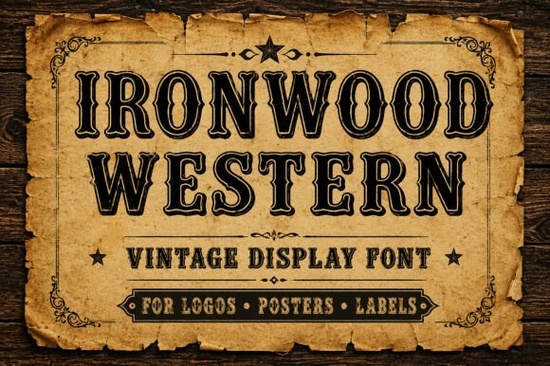
If you’ve ever wanted to add a touch of rugged charm to your designs, Ironwood Western Font might be exactly what you’re looking for. It’s not just another decorative typeface it’s built to feel like something pulled straight from a dusty saloon wall or an old-timey whiskey label. The texture is slightly distressed, as if stamped with ink on aged paper, and it comes wrapped in an ornamental border that gives it extra character without needing additional design work.
This font works especially well if you’re designing for brands or products that want to feel handmade, vintage, or rooted in tradition. Think leather goods, craft spirits, event posters for fall festivals or rodeos, or even rustic wedding invites. You don’t need to force the “western” theme the font naturally suggests heritage and craftsmanship, which makes it surprisingly versatile.
What kinds of projects does Ironwood Western work best for?
Because of its strong personality and visual weight, this font shines when used as a display type meaning headlines, logos, packaging, or anything meant to grab attention at a glance. Here are a few real-world uses we’ve seen designers love:
- Product labels especially for small-batch coffee, bourbon, hot sauce, or candles.
- Event posters think harvest fairs, country concerts, or vintage markets.
- Branding elements logos for barbershops, BBQ joints, or western wear boutiques.
- Print-on-demand items mugs, t-shirts, or tote bags with a nostalgic, Americana vibe.
How does it compare to other serif fonts with personality?
None of these replace Ironwood they complement it. Sometimes you’ll want that weathered, frontier feel. Other times, you might want something sleeker or more romantic. Having options helps you match the tone of your project without forcing a style that doesn’t quite fit.
Is it easy to use for beginners?
Absolutely. You don’t need to be a typography expert to make Ironwood Western look good. Because it’s a display font with built-in texture and framing, it often looks finished with minimal effort. Just drop it into your layout, adjust the size, and you’re halfway there.
That said, here are a few quick tips to get the most out of it:
- Use sparingly. One headline or logo per design is usually enough too much can feel overwhelming.
- Pair with simple sans-serifs. Let Ironwood be the star. Pair it with something clean like Helvetica, Lato, or Montserrat for body text.
- Watch your spacing. Some letters have ornate serifs or flourishes give them room to breathe, especially at smaller sizes.
- Try dark backgrounds. The distressed texture pops beautifully against deep browns, blacks, or faded denim blues.
Who should skip this font?
It’s not ideal for long paragraphs, minimalist branding, or tech-focused designs. If your project needs to feel ultra-modern, corporate, or clinical, this probably isn’t the right choice. But if you’re aiming for warmth, nostalgia, or a handcrafted aesthetic, it’s hard to beat.
Also, if you’re working with very small print sizes (like fine print on tags or tiny product details), you might find the texture and ornamentation get muddy. Save it for moments where it can be seen clearly and appreciated up close.
Quick checklist before you download:
- ✅ Are you designing something meant to feel vintage, rustic, or artisanal?
- ✅ Will the font be used for headlines, logos, or packaging not body text?
- ✅ Do you have a background or color scheme that lets the texture stand out?
- ✅ Are you okay with a font that has strong personality (not neutral or invisible)?
If you answered yes to most of those, Ironwood Western will likely serve you well. It’s one of those fonts that feels complete right out of the box no extra effects or layering required. Just install, type, and let the old-west charm do the rest.